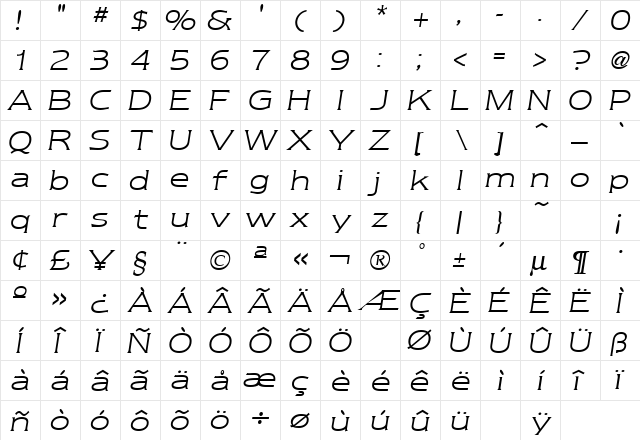
Newtext Light Italic
Design Context for Newtext Light Typeface
Newtext Light is a composed and adaptable typeface that performs quietly and consistently across a wide range of design contexts. The dynamic lean of this cut emphasises speed and emphasis in any layout. Its slender proportions lend an understated elegance to any composition.
Pro Tip: Try Newtext Light for annotation and caption copy alongside an upright companion — the contrast in angle creates a dynamic but ordered typographic system.